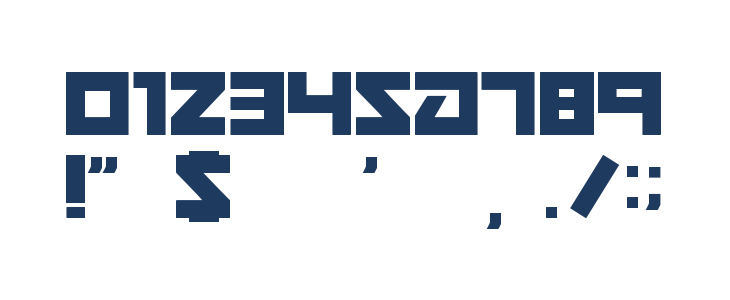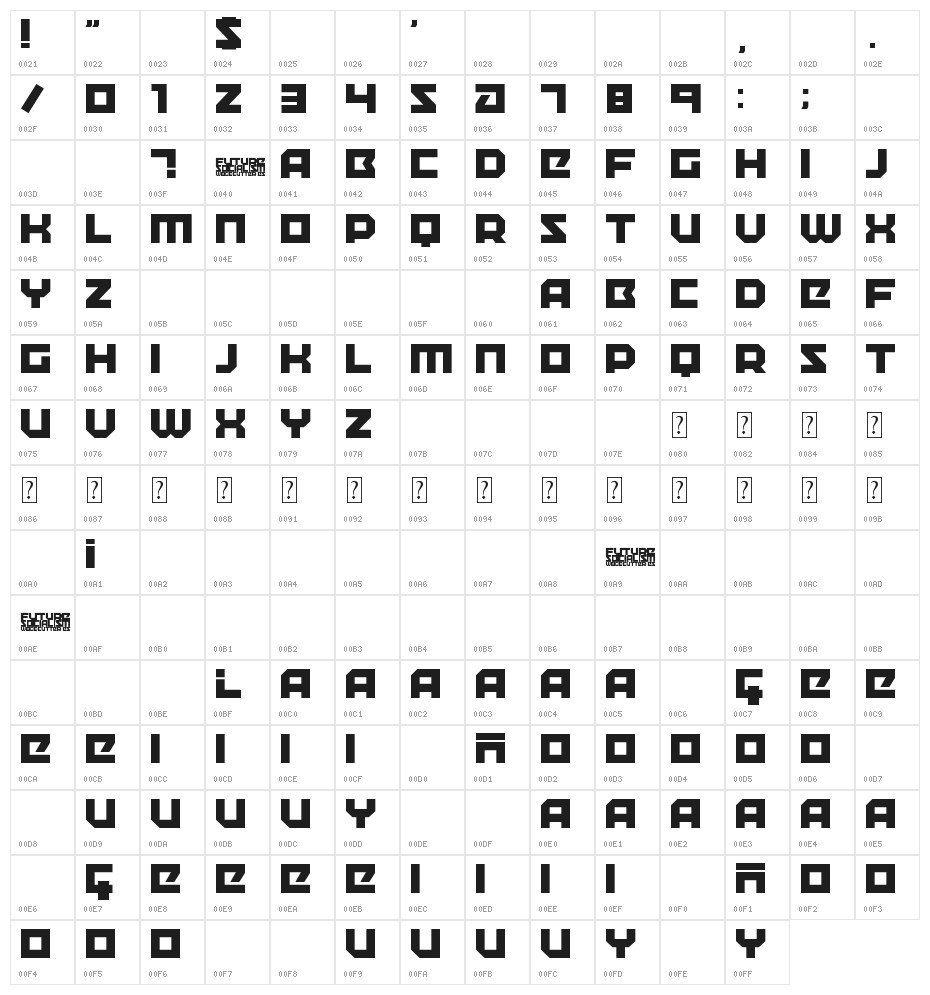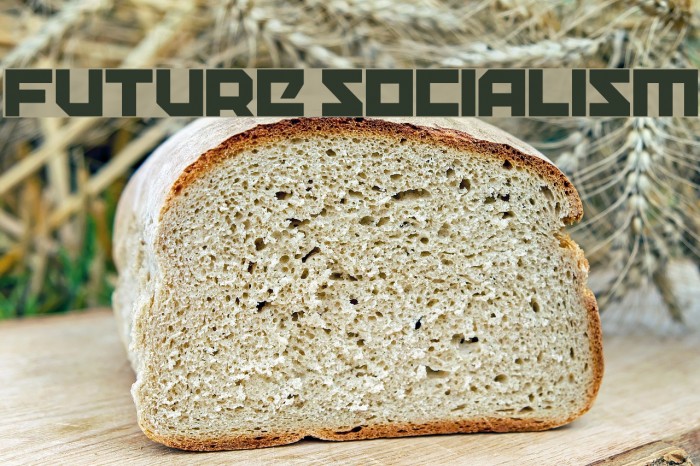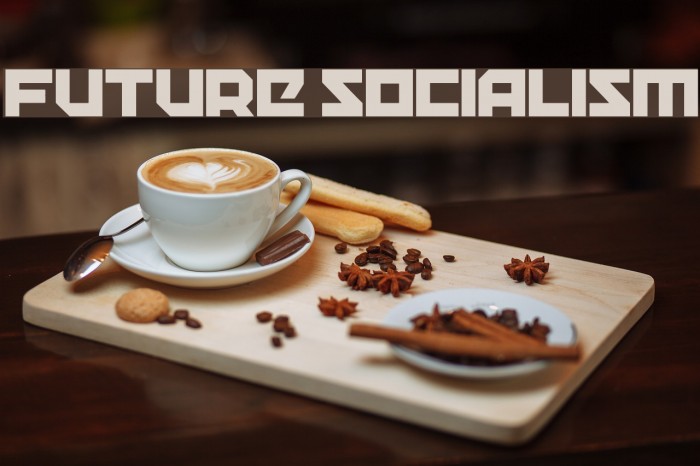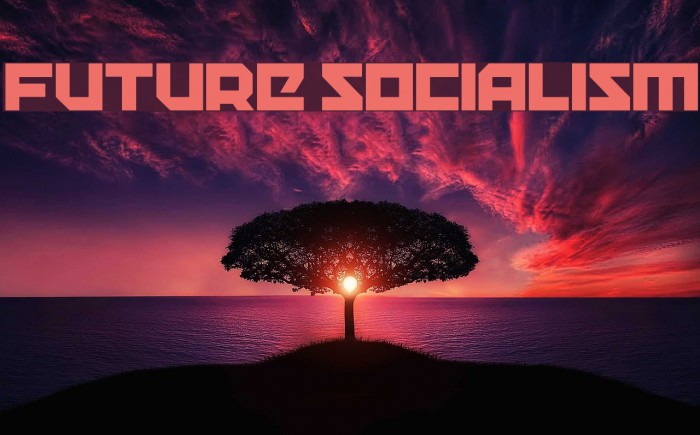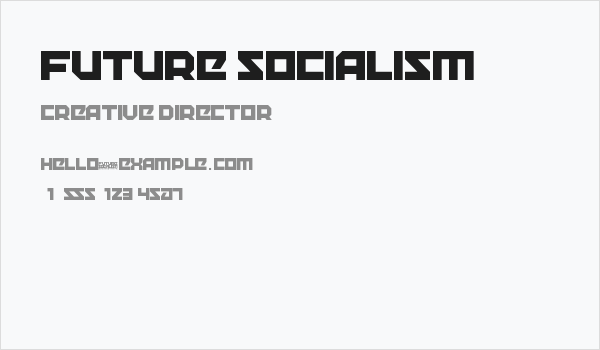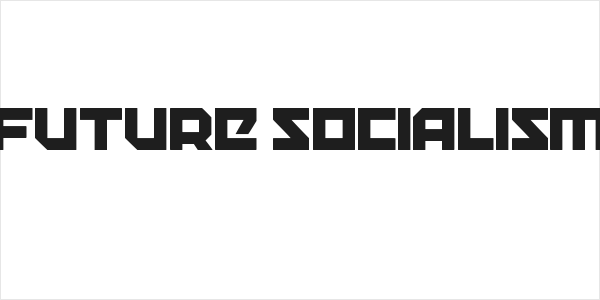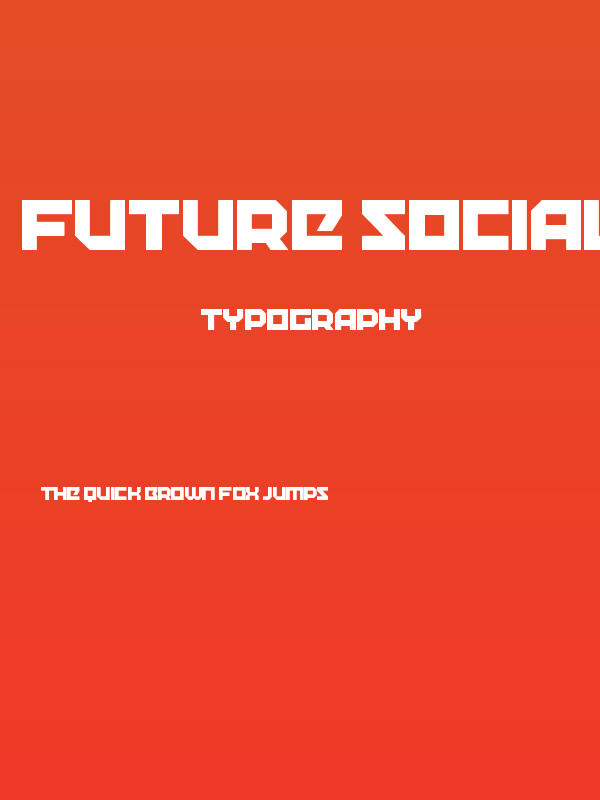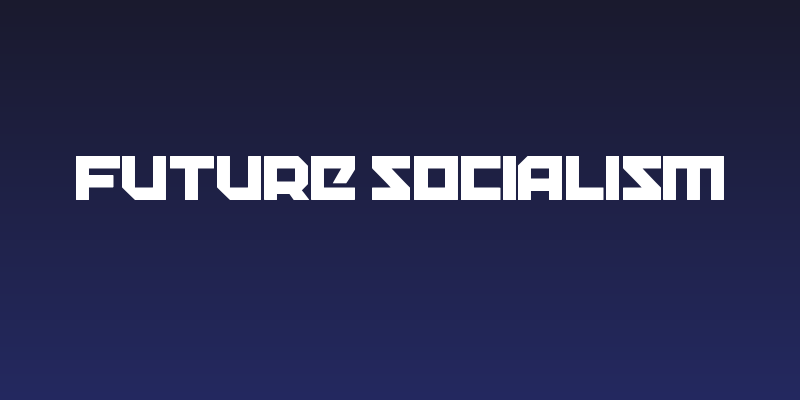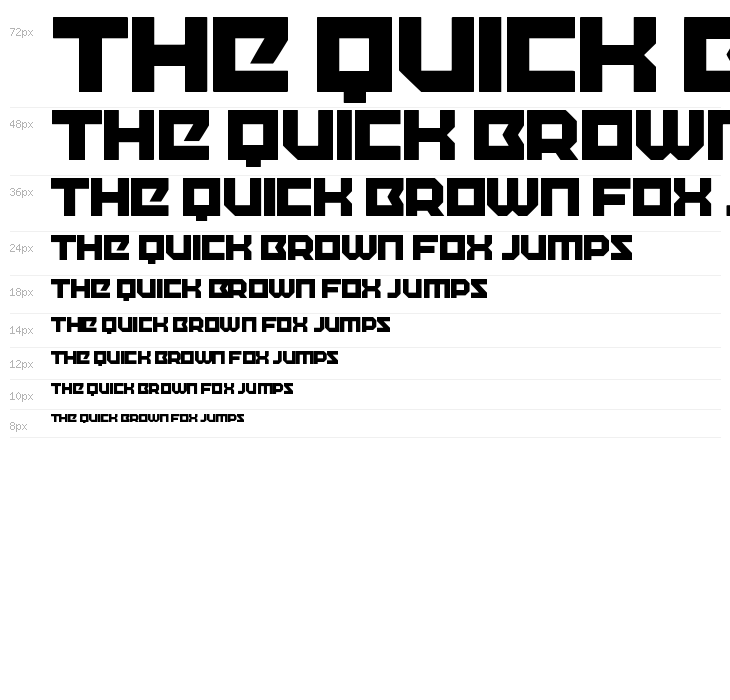
Future Socialism Font
Future Socialism Description
This font features a bold, geometric style with a futuristic and industrial feel. The characters are constructed with sharp angles and straight lines, giving them a blocky appearance. The uppercase letters are uniform in height, while the lowercase letters maintain a consistent style that complements the uppercase set. The numbers are similarly designed, with a strong emphasis on symmetry and balance. Special characters are included, maintaining the overall aesthetic with a modern twist. This font is ideal for projects that require a strong, impactful visual presence.
| Proposed Projects | Ideal for branding, posters, video game graphics, and any project needing a modern, impactful look. |